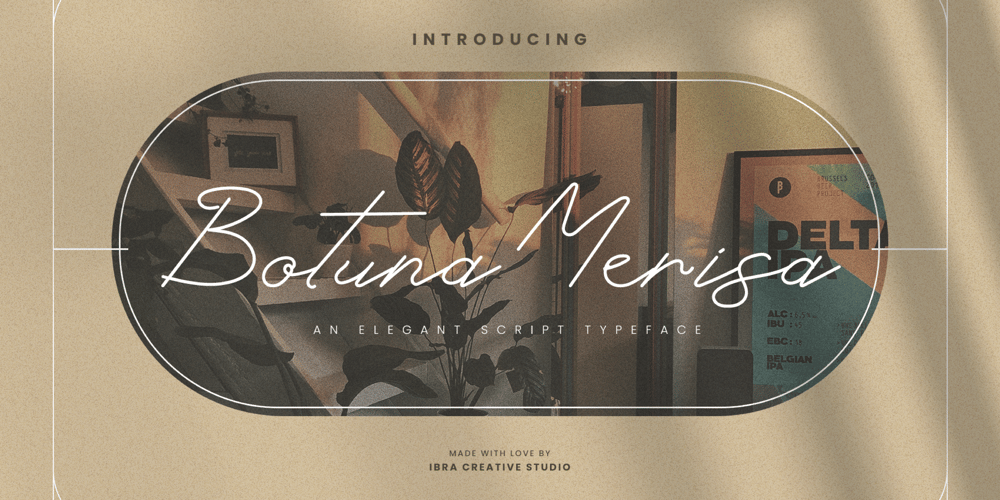
Botuna Merisa Font Family was designed by Roisatul Azizah and published by IbraCreative. Botuna Merisa contains 1 styles and family package options. Botuna Merisa is an exquisitely elegant script typeface that radiates sophistication and grace. With its fluid and refined letterforms, Botuna Merisa captures the essence of timeless beauty and classic charm. The delicate curves and ornate details of this typeface add a sense of opulence and refinement, making it the perfect choice for high-end branding, wedding invitations, and upscale packaging.